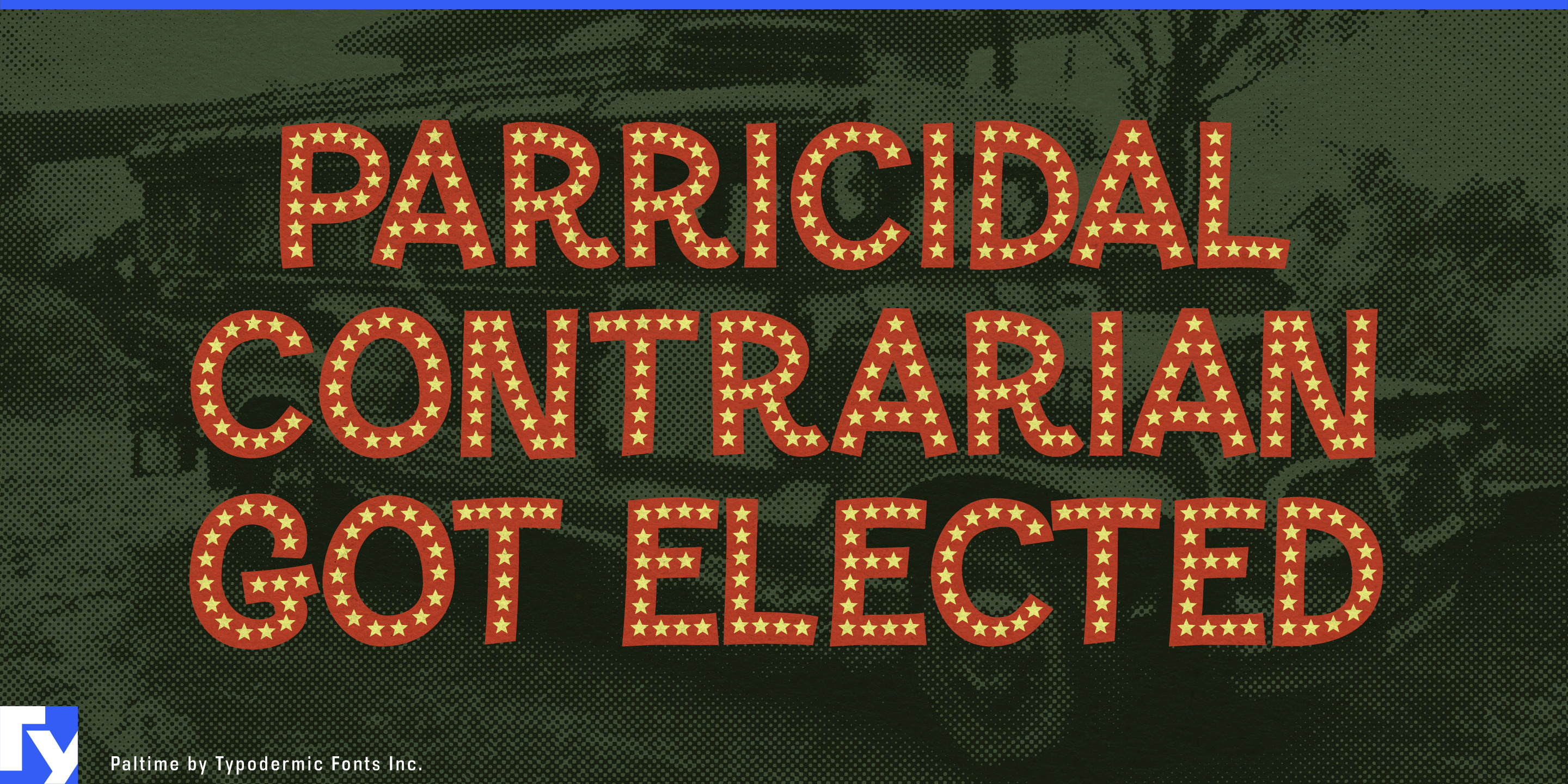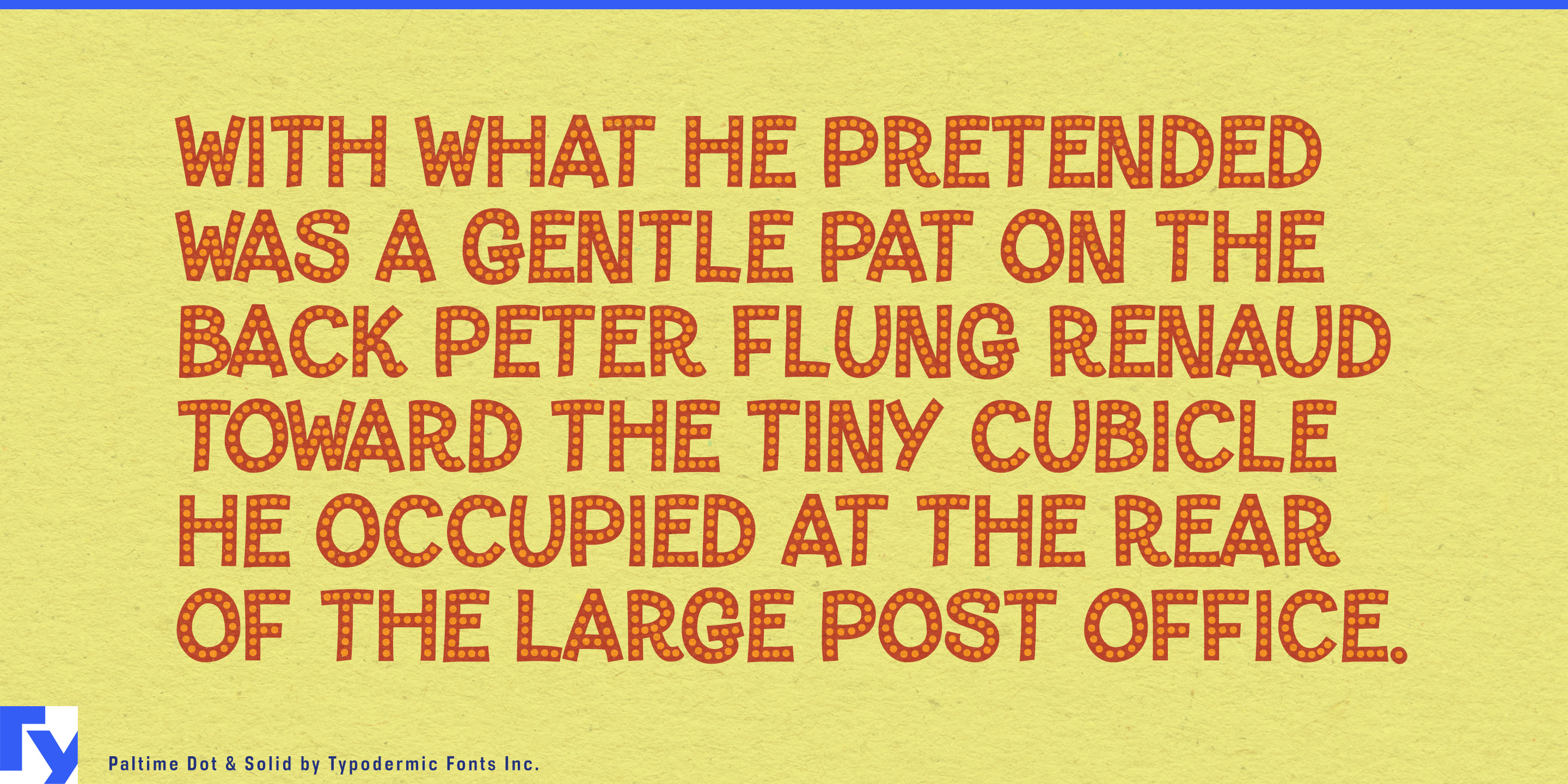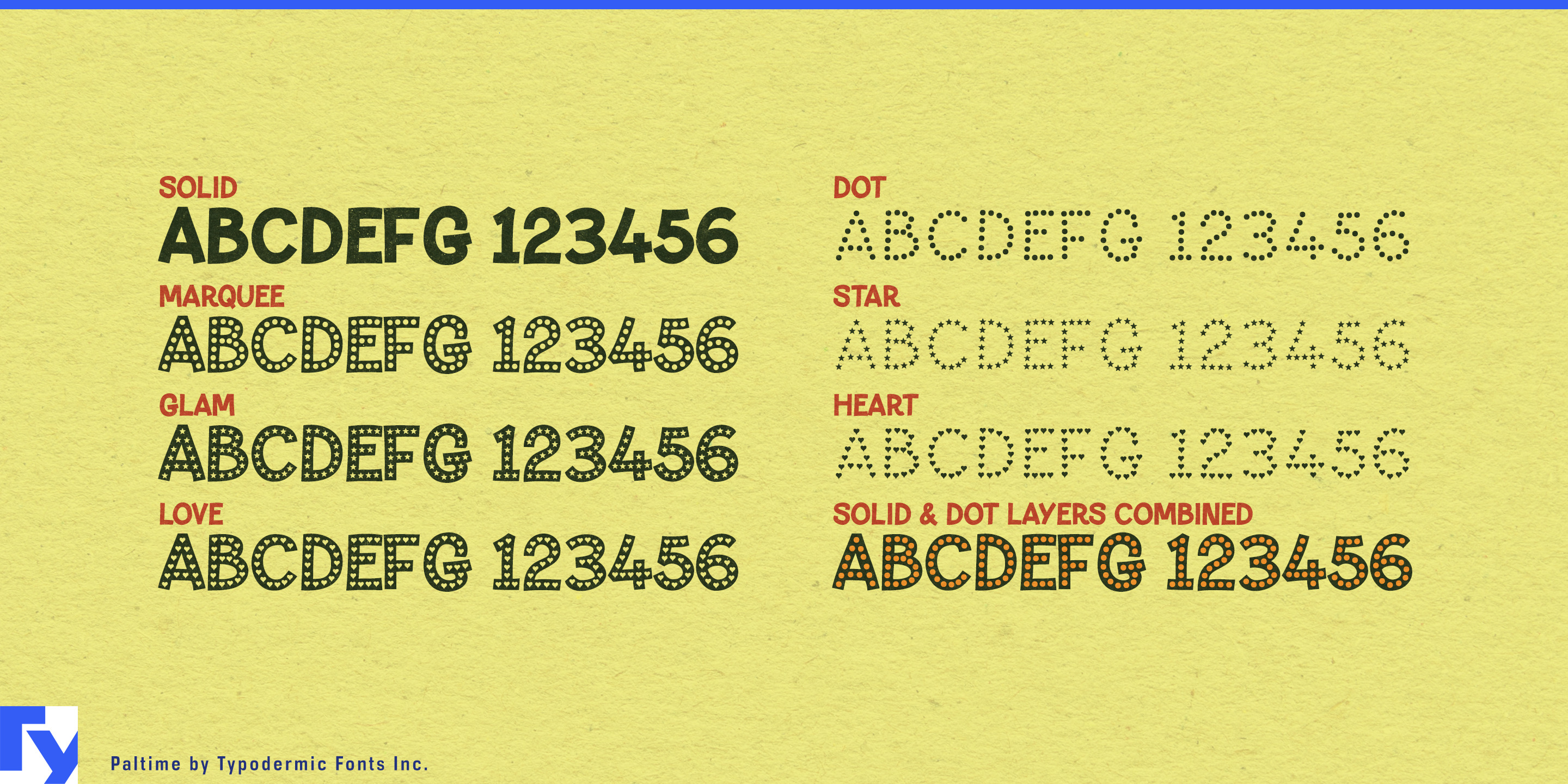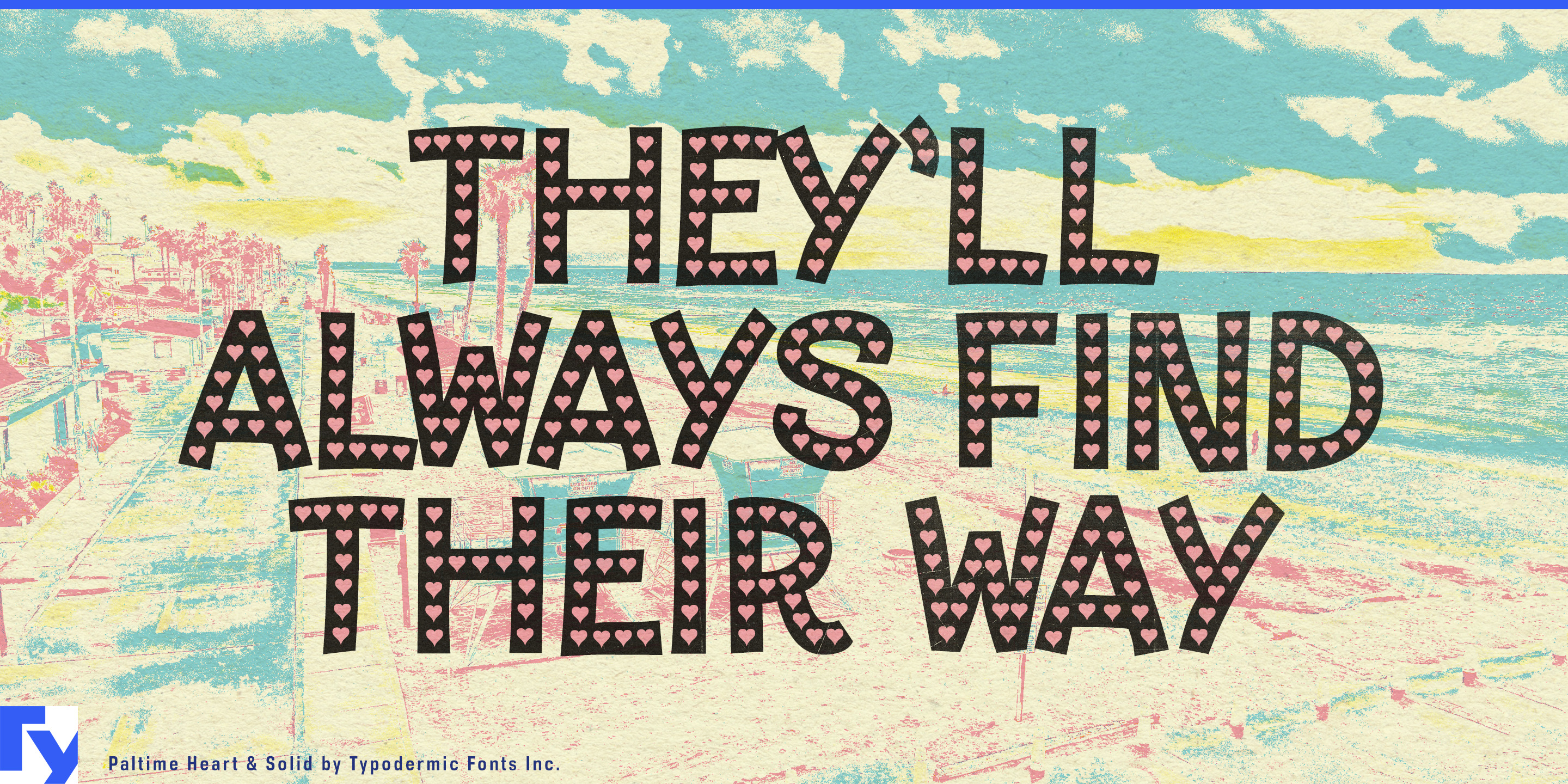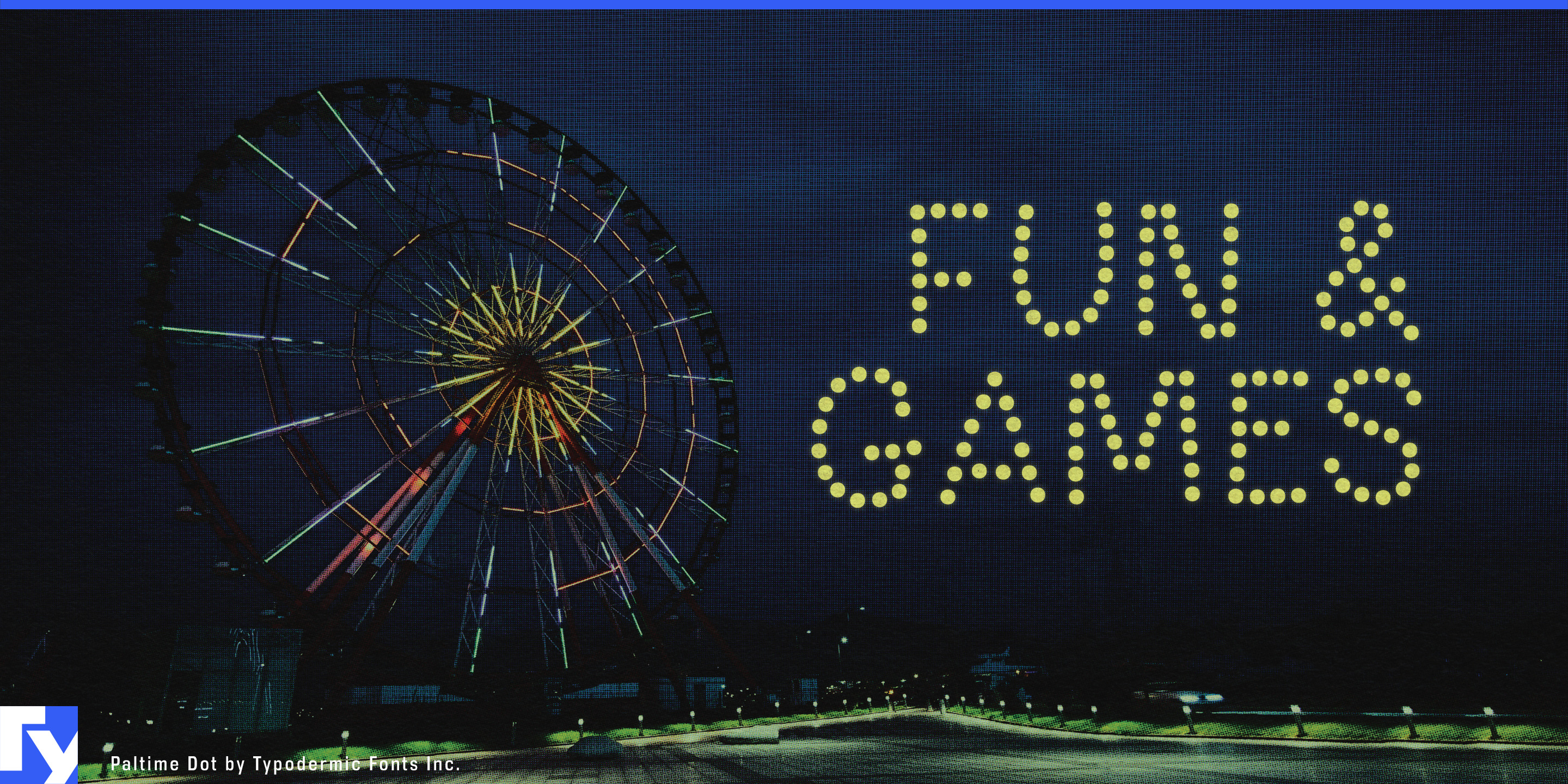
Paltime
Entertainment identities have an unusual problem: the name may need to stay recognizable while everything surrounding it changes. A casino resort, concert residency or recurring show can move through opening nights, romantic promotions, awards weekends, holiday events, special guests and limited merchandise without changing its basic title. Paltime turns that constant change into part of the typographic system.
Its all-caps letterforms support coordinated treatments built around dots, lights, stars, hearts, outlines and solid forms. The underlying word shape stays recognizable while the internal treatment changes, allowing the same title to become brighter, more romantic, more celebratory or more restrained without being redesigned from scratch.
Casino resorts and entertainment destinations are natural settings for that flexibility. A recurring show may need to appear on exterior displays, ticketing pages, lobby graphics, hotel screens, promotional video, merchandise and social campaigns. Dot and Marquee styles can push toward illuminated show graphics; Star suits headline entertainment and celebratory events; Heart can shift toward romantic or fan-oriented promotions; Solid provides a quieter option when the surrounding artwork is already busy.
Concert residencies, touring productions and variety shows face a similar problem. One title may have to survive dozens of campaign themes while remaining identifiable from billboard scale down to merchandise. Paltime can handle show titles, performer billing, segment names and promotional phrases while a calmer companion face takes care of dates, venues and supporting information.
Talent competitions, game shows and streaming entertainment can use the same system for contestant introductions, prize graphics, winner announcements, special episodes and themed segments. Theme parks, immersive attractions, cruise-ship shows and entertainment districts can keep one attraction or venue name while changing seasonal campaigns around it.
Paltime is an all-caps display family built for identities that have to keep changing the show without changing the name. One night can be lights, another stars, another hearts, another a cleaner solid treatment; the title remains recognizably the same.
- Layered, Inline, Outline
- Dot
- Glam
- Heart
- Love
- Marquee
- Solid
- Star